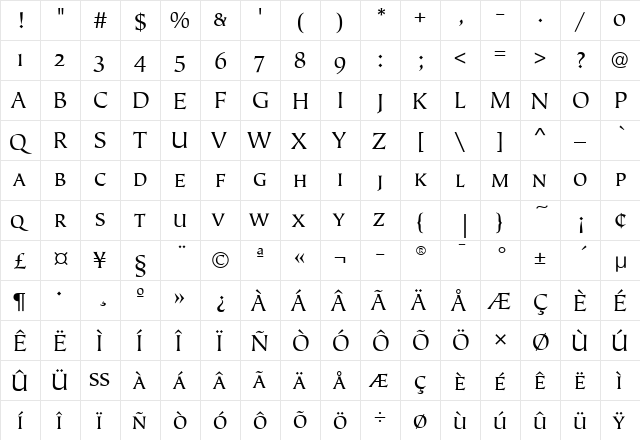
TiepoloSCITC Book Font Preview
TiepoloSCITC Book
TiepoloSCITC Book Font Details
Design Context for TiepoloSCITC Typeface
TiepoloSCITC is a composed and adaptable typeface that performs quietly and consistently across a wide range of design contexts.